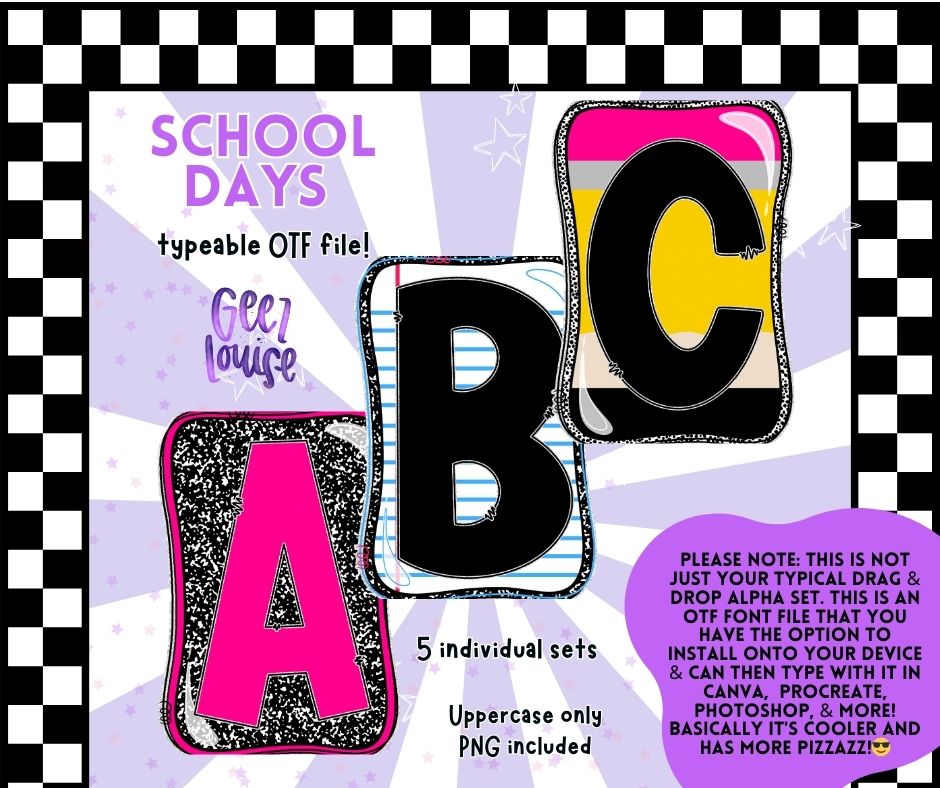
School Days OTF Font + PNG Alpha Set
School Days is the ultimate back-to-class font bundle featuring 5 unique OTF fonts inspired by classroom classics. Whether you're designing teacher tees, back-to-school signs, or custom kid gear, these fonts bring the fun!
– Styles include: Composition Book, Notebook Paper, Pencil, Highlighter Pop, and more
Perfect for school-themed projects, teacher gifts, classroom décor, and educational merch.